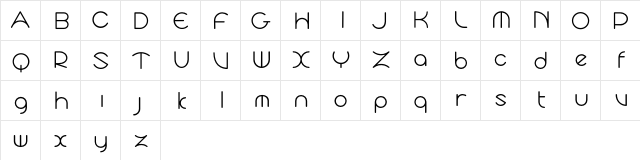
Cyclo Trial
| Foundry | Florent Courtaigne |
| Designer | Florent Courtaigne |
Design Context for Cyclo Typeface
Cyclo offers clean, dependable letterforms without strong stylistic allegiance, making it a practical choice for designers who need flexibility.